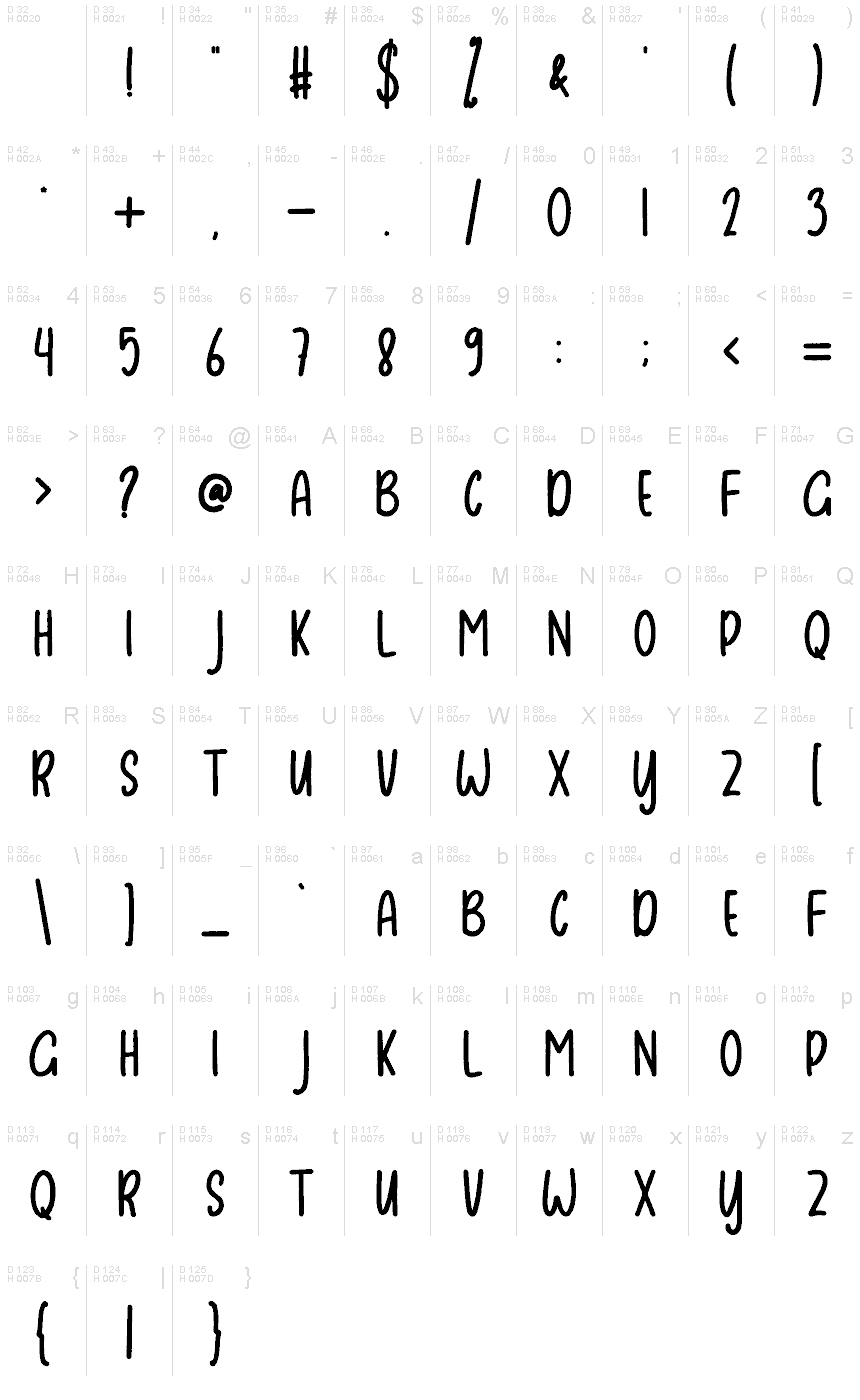
Eranity
Eranity font is a handwritten typeface created by Skiiller Studio. With its condensed width, it presents a modern and friendly design with an approachable aesthetic that works for both small and large letters. This casual free handwritten font can effortlessly delight your audience while decorating even the simplest of projects.
Use Eranity for greeting cards, branding or packaging designs, adventure-related ads, invitations such as weddings and parties ones, posters, flyers for clubs or events, labels and business logos. Other menus include homemade product packages and other food menu covers.